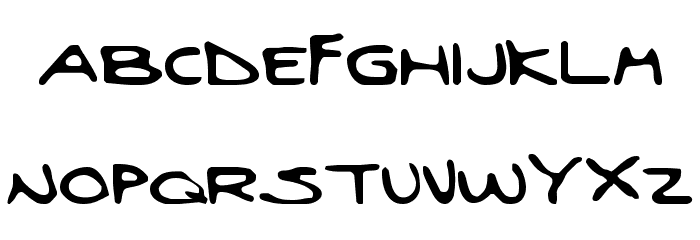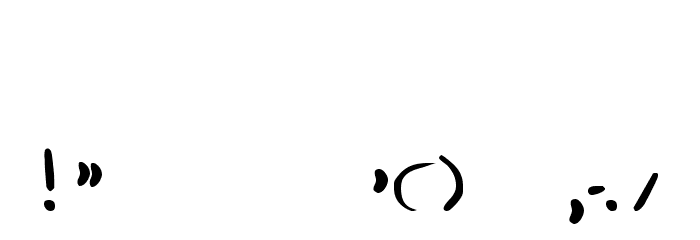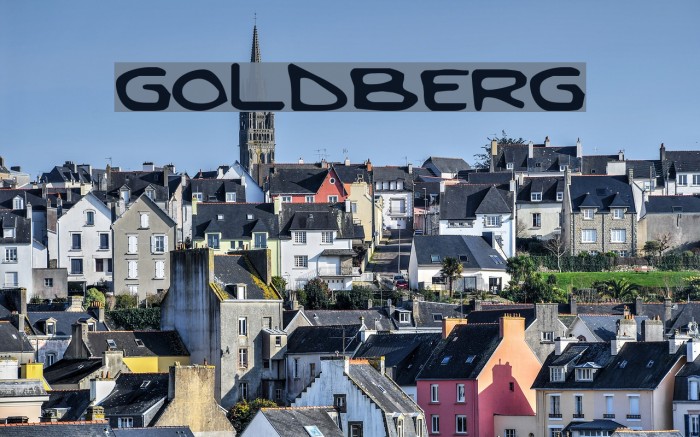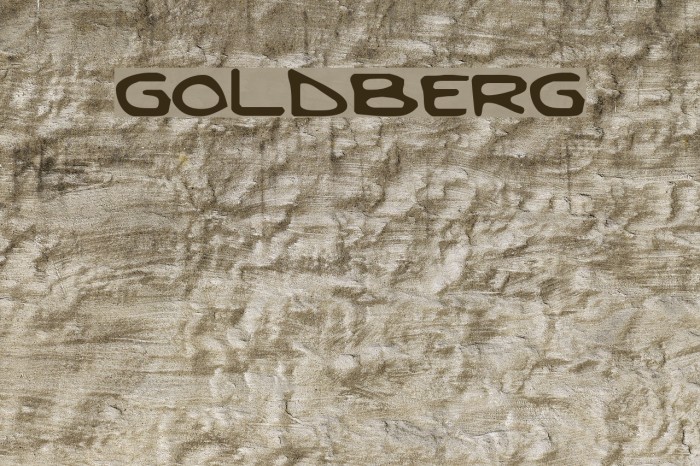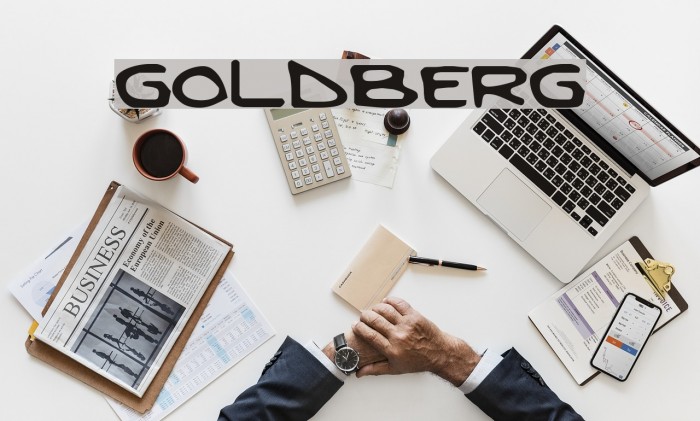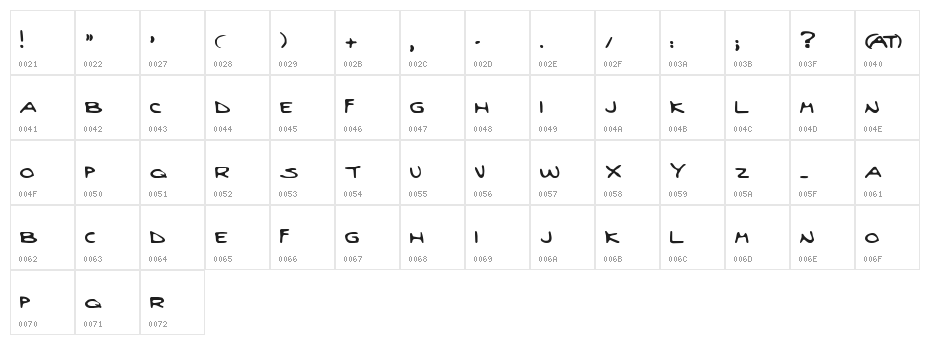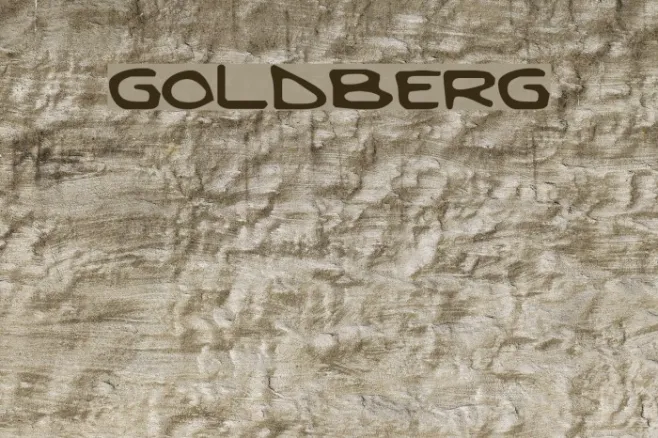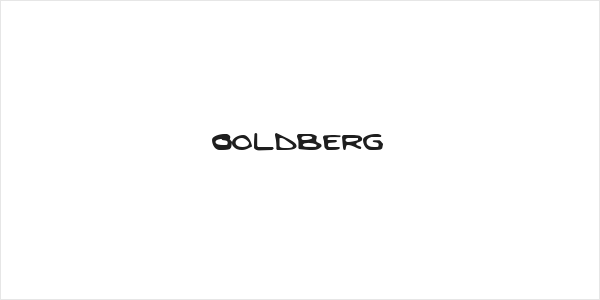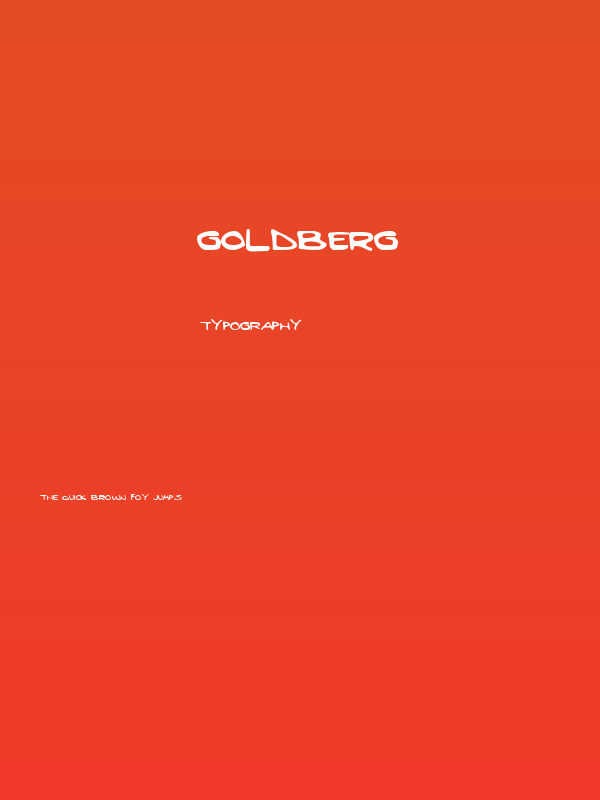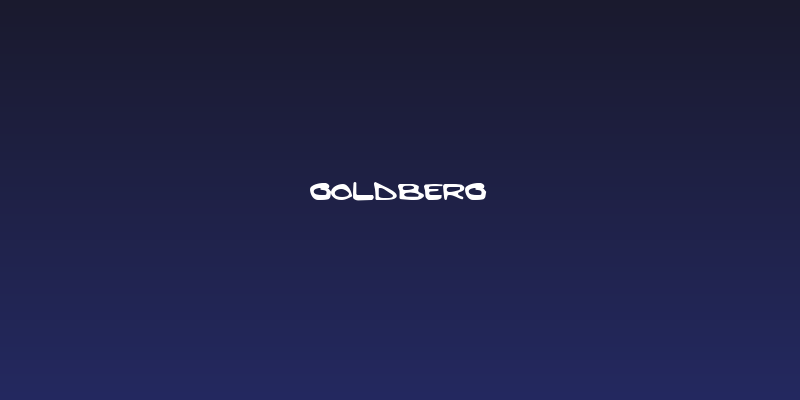
Goldberg Font
This font features a playful and informal style, characterized by its rounded and slightly irregular letterforms. The strokes are bold and consistent, giving it a strong presence while maintaining a casual and approachable feel. The uppercase and lowercase letters are well-balanced, with a slight slant that adds to its dynamic appearance. The numerals and special characters are designed to match the overall aesthetic, ensuring a cohesive look across all text elements. This font is ideal for projects that require a friendly and fun touch, such as children's books, casual branding, or creative posters.
A playful, bold font with rounded, slightly irregular letterforms.
- Proposed Projects: Children's books, casual branding, creative posters.
- Overall Style: Playful, Informal